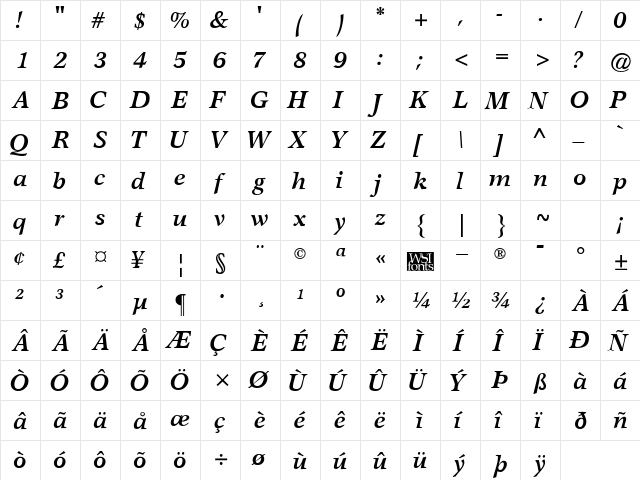
Steward Bold Italic Font Preview
Steward Bold Italic
Steward Bold Italic Font Details
Design Context for Steward Typeface
Steward is a composed and adaptable typeface that performs quietly and consistently across a wide range of design contexts. The slanted form adds forward momentum and visual energy. Its bold stroke weight gives it real presence on the page.